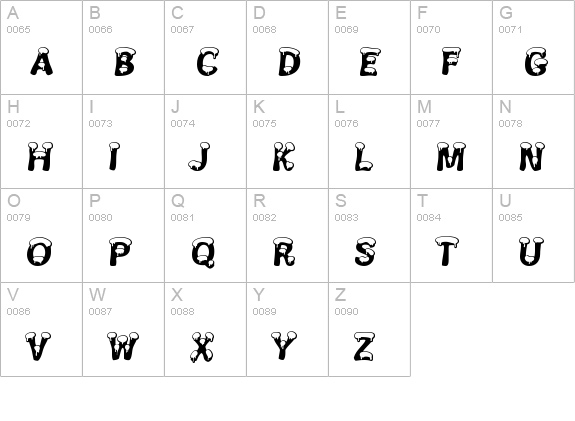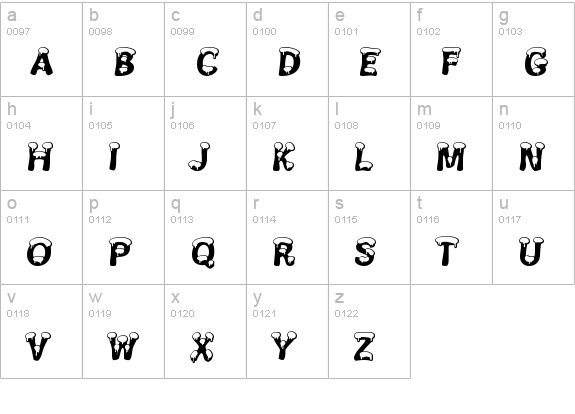
Snowa Snow Font Details
Introducing Snowa Snow font, a whimsical and elegant typeface perfect for adding a touch of winter charm to your designs. This unique font features delicate snowflake-inspired detailing that brings a frosty aesthetic to any project. Its clean lines and graceful curves make it ideal for holiday cards, seasonal promotions, and winter-themed branding. What's more, Snowa Snow font is not only beautiful but also free to download at FontsMarket.com. This means you can easily access this stunning font to elevate your designs without any cost. Embrace the enchanting beauty of Snowa Snow font and let your creativity sparkle this winter season.